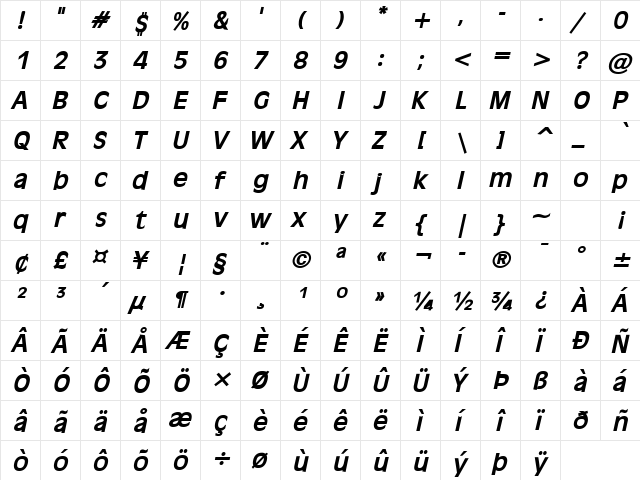
Antiqua 101 Bold Italic Font Preview
Design Context for Antiqua 101 Typeface
Antiqua 101 offers clean, dependable letterforms without strong stylistic allegiance, making it a practical choice for designers who need flexibility. The slanted form adds forward momentum and visual energy. The heavy weight commands attention and anchors typographic hierarchies.
Pro Tip: Try Antiqua 101 for annotation and caption copy alongside an upright companion — the contrast in angle creates a dynamic but ordered typographic system.